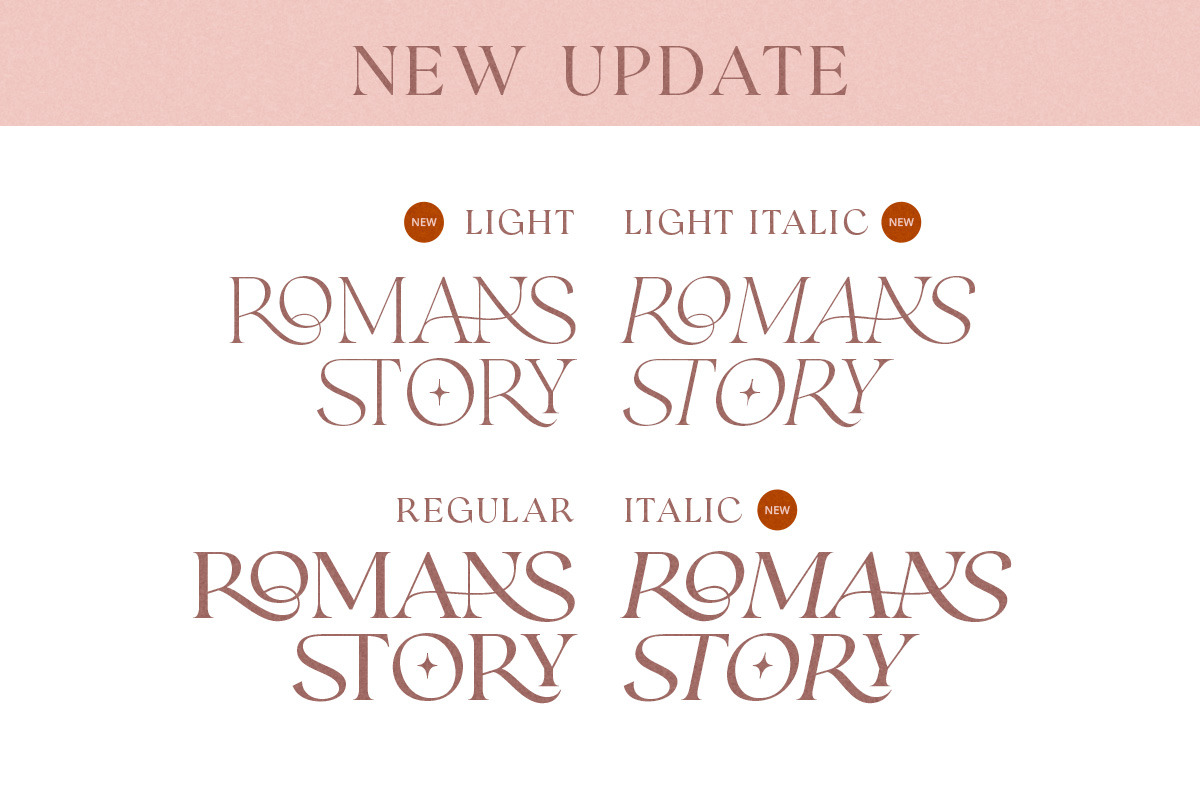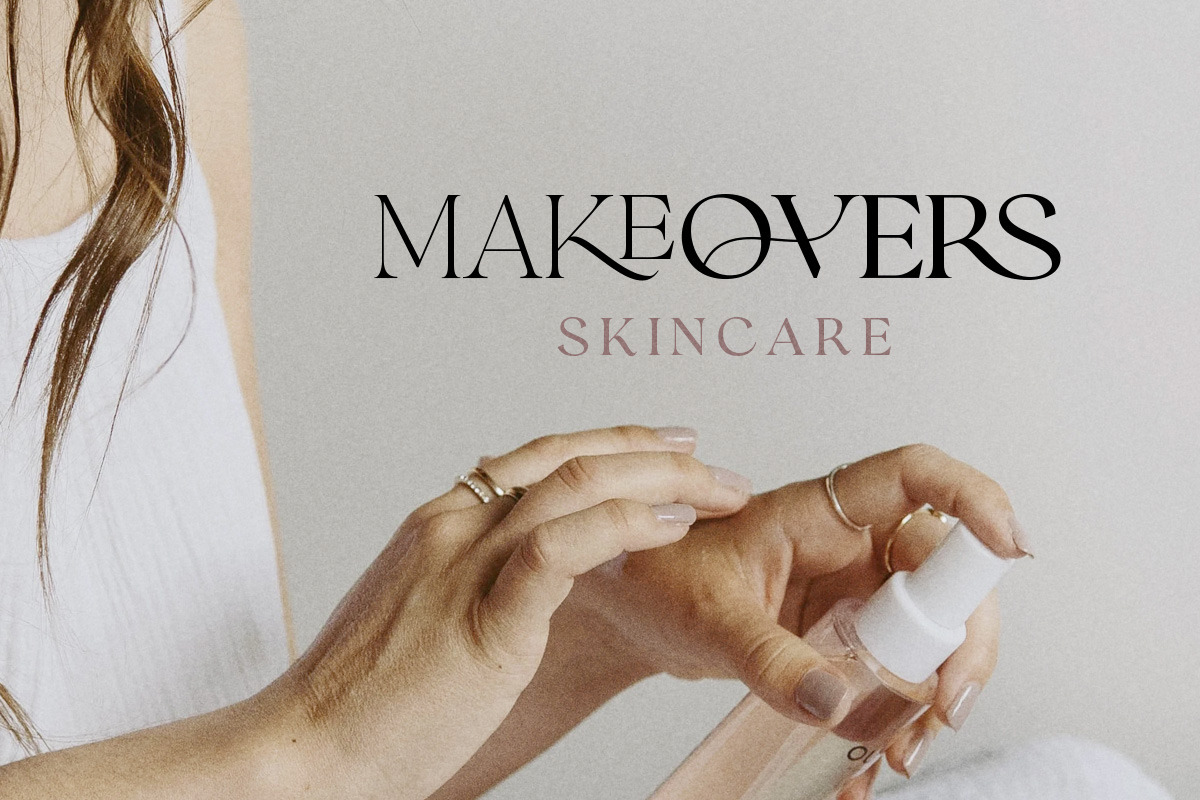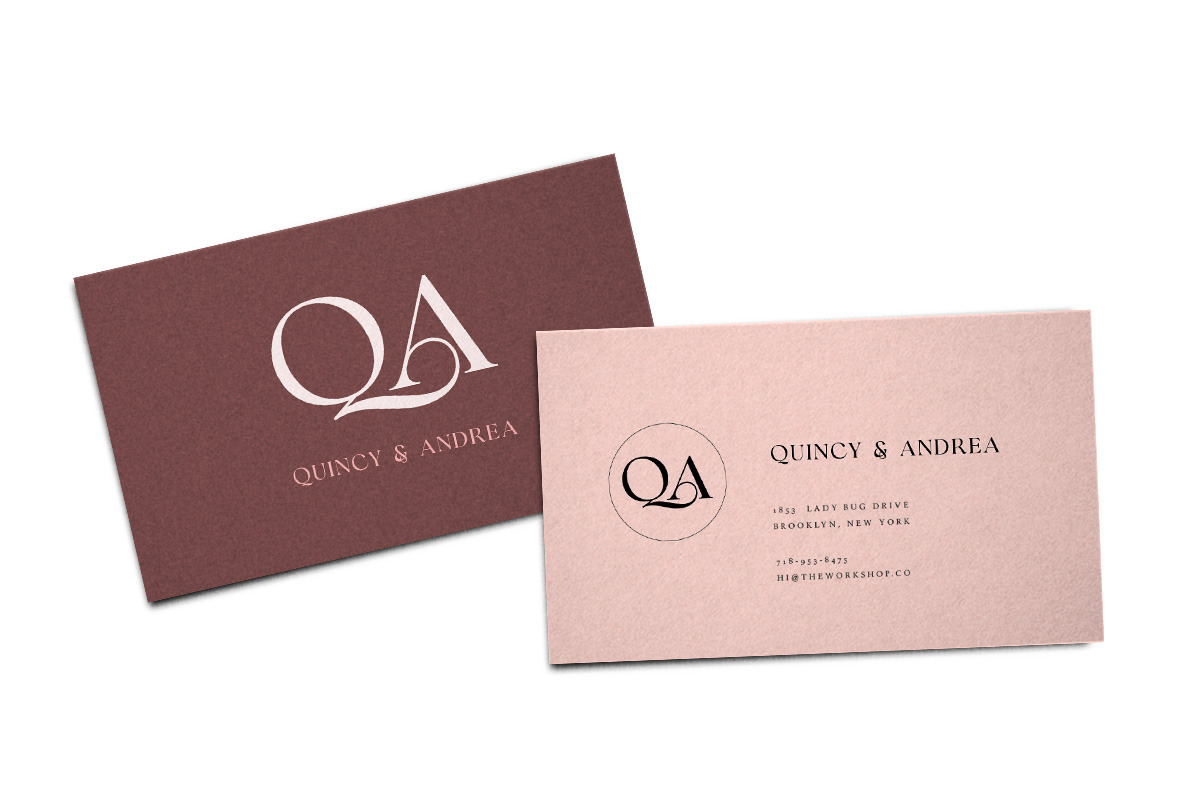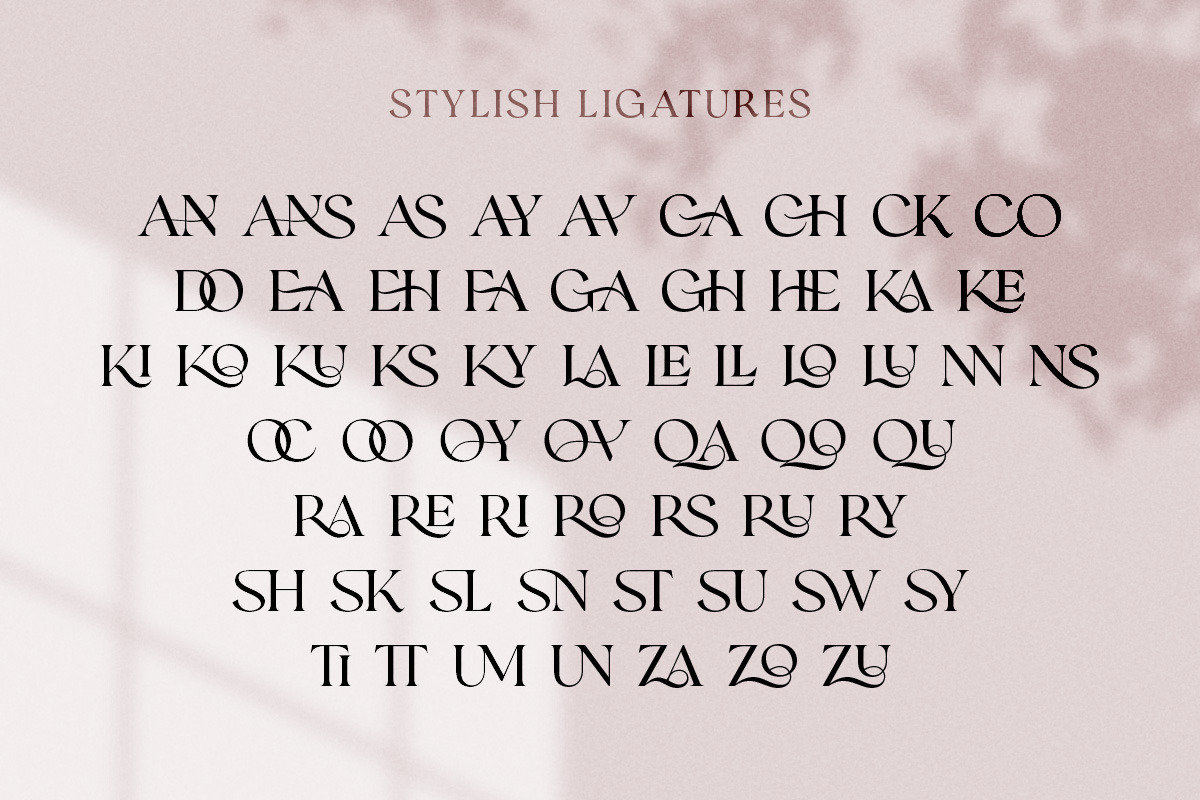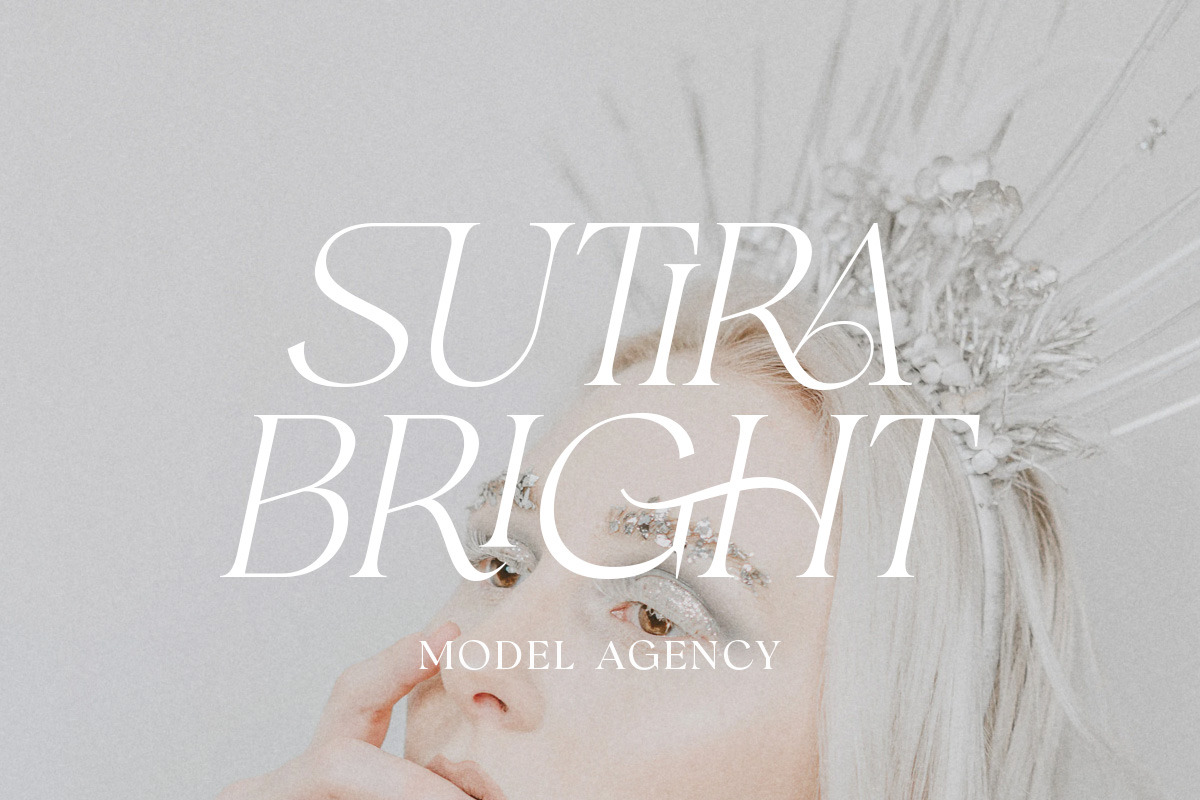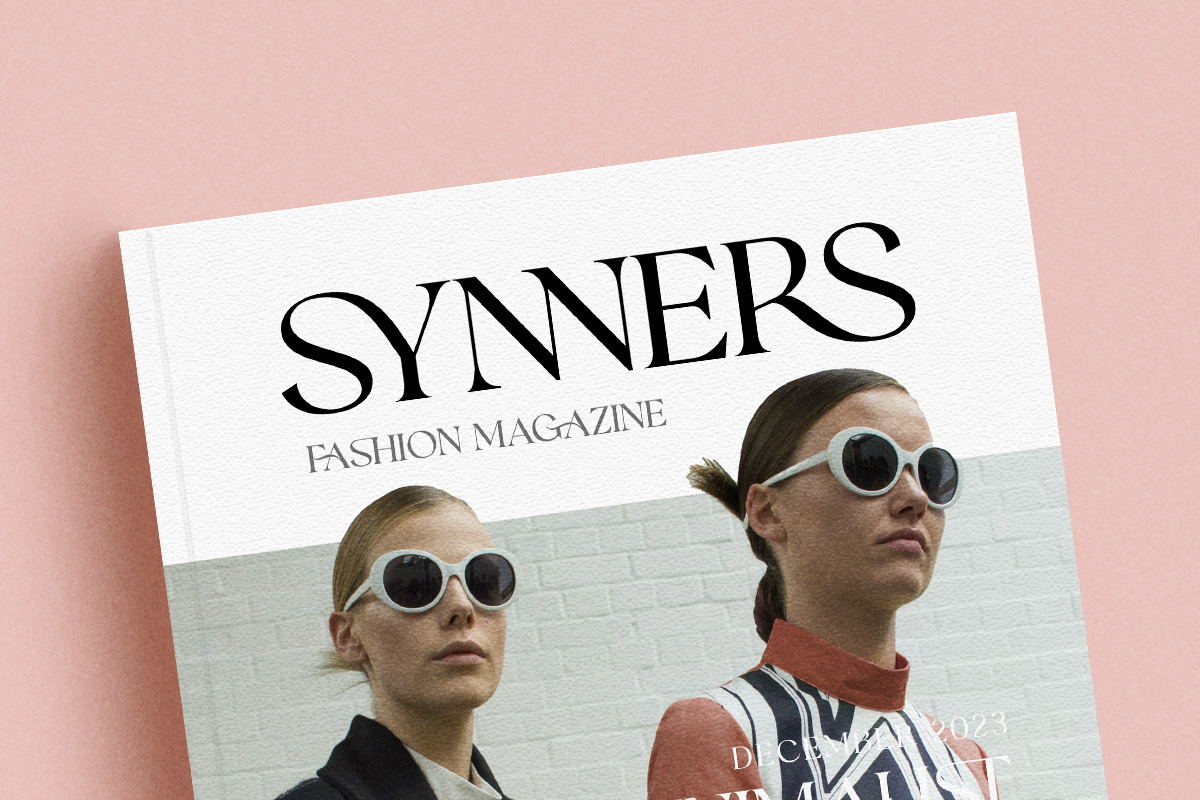
UPDATE! Romans Story Ligature Serif
Romans Story is a sophisticated ligature serif font designed with care to deliver a premium and luxurious feel. Its elegant ligatures make it stand out from typical serif fonts, giving your designs a truly unique touch.
ligatures
alternates